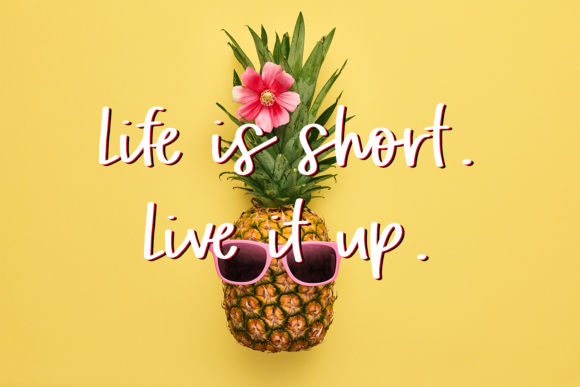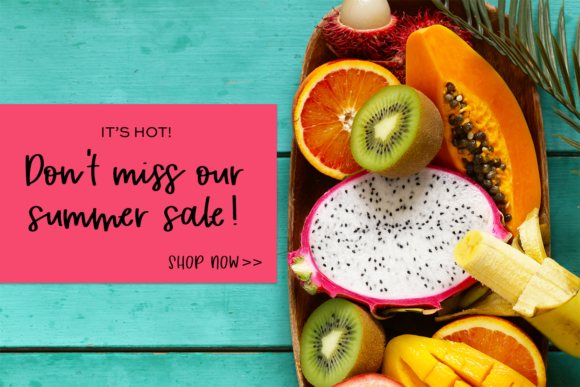
Tropical Trail Font
db-ku.com - Script & Handwritten -- Tropical Trail is a fresh and fun handwritten font. It is perfect for all your crafting projects!